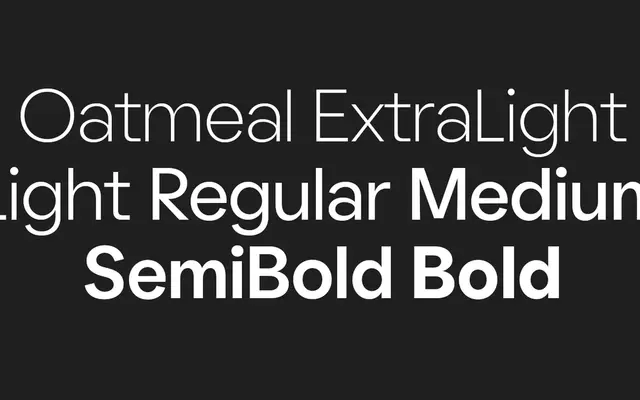
Oatmeal Pro
sans-serifhumanist sans
A typeface from Boulevard LAB with insufficient page content available to describe in detail.
The name and foundry context suggest a warm, humanist sans-serif character, though the page content is too sparse to confirm specific subcategory details with certainty.